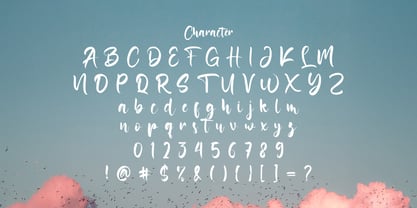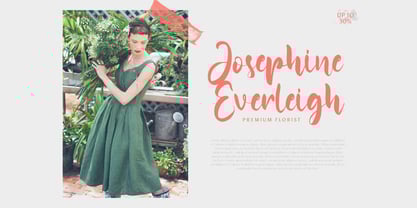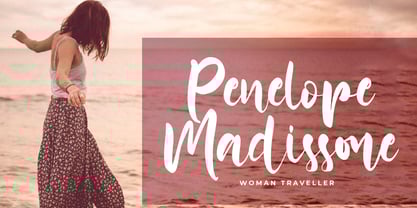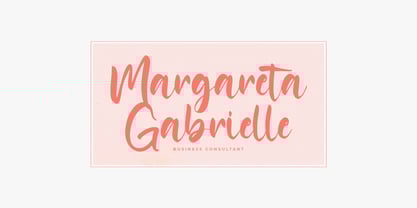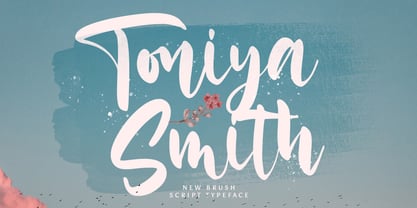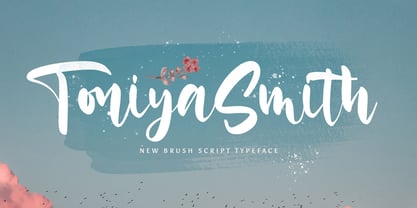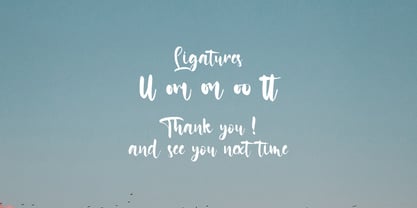
Toniya Smith
by Stringlabs Creative Studio
The Toniya Smith Font Family was designed by Virgiawan Listanto and published by Stringlabs Creative Studio. Toniya Smith contains 1 styles. More about this family
Toniya Smith is an elegant handwritten font with a clean, flowing style that feels both modern and timeless. Its smooth curves and balanced rhythm bring a personal, polished look to your designs perfect for adding warmth and sophistication with a handwritten touch.
Designers: Virgiawan Listanto
Foundry: Stringlabs Creative Studio